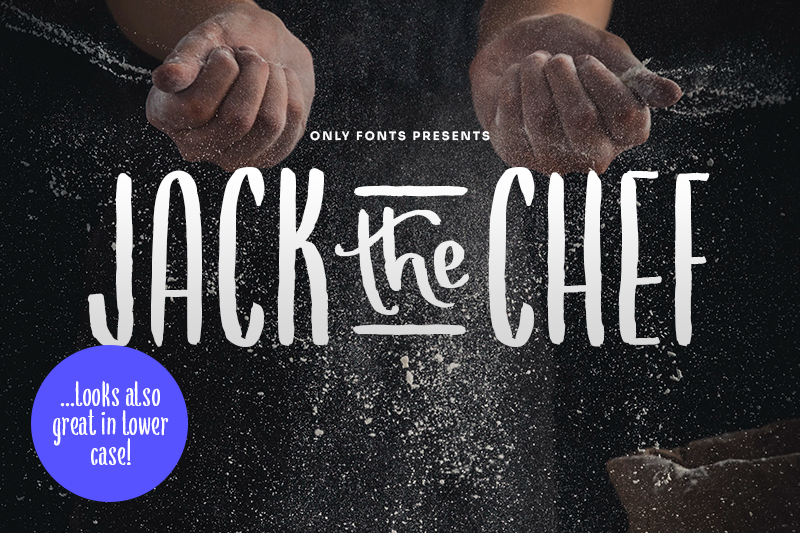
Font name: | Jack the Chef |
Author: | Only Fonts |
NEW: FREE for Personal and JUST 3$ for Commercial Use! Introducing our next "OnlyFont" - Project! A new font foundry that aims to make cool handcrafted fonts affordable for everyone. Its just 3$ for small companies and can be bought @ www.only-fonts.com/jackthechef �Jack the Chef� is a perfect fit if you�re working with limited spaces , which often requires a narrow font. This multipurpose typeface also offers two completely different moods depending on the usage of upper and lowercase. Type all CAPS to get a very bold headline font and use the lower case for smooth subheadlines or multiple lines of text. Missing a glyph? No problem. We'll create up to three glyphs for you for free if you purchase a license! Need a custom wordmark or do you have any other questions? Get us at hello@only-fonts.com. |